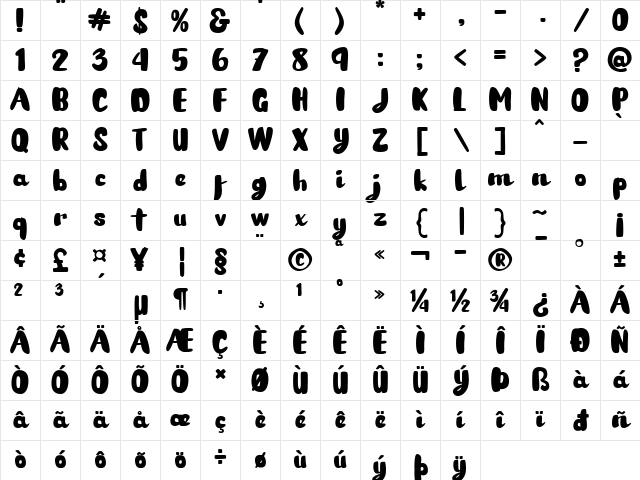
Potato Pancakes Regular
Designer: Kurnia Setyadi
Design Context for Potato Pancakes
Potato Pancakes is a composed and adaptable typeface that performs quietly and consistently across a wide range of design contexts.